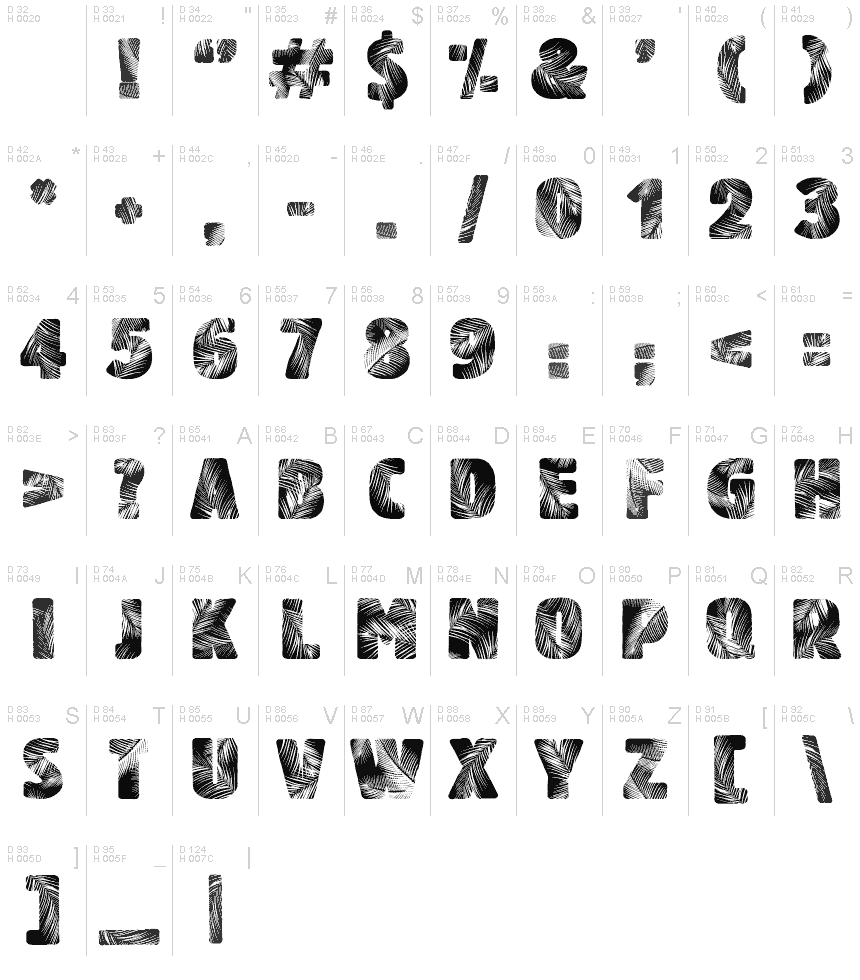
Palm Beach
Palm Beach is a bold, decorative display font that exudes a striking visual impact. Defined by its dynamic, sweeping strokes and dramatic flair, this font commands attention and makes a powerful statement. The bold weight and decorative flourishes lend an air of sophistication and elegance, making Palm Beach an ideal choice for high-impact branding, headlines, and eye-catching design elements.
Its versatility extends to various applications, from editorial layouts and packaging design to advertising collateral and event materials, where it can elevate the visual aesthetic and leave a lasting impression.